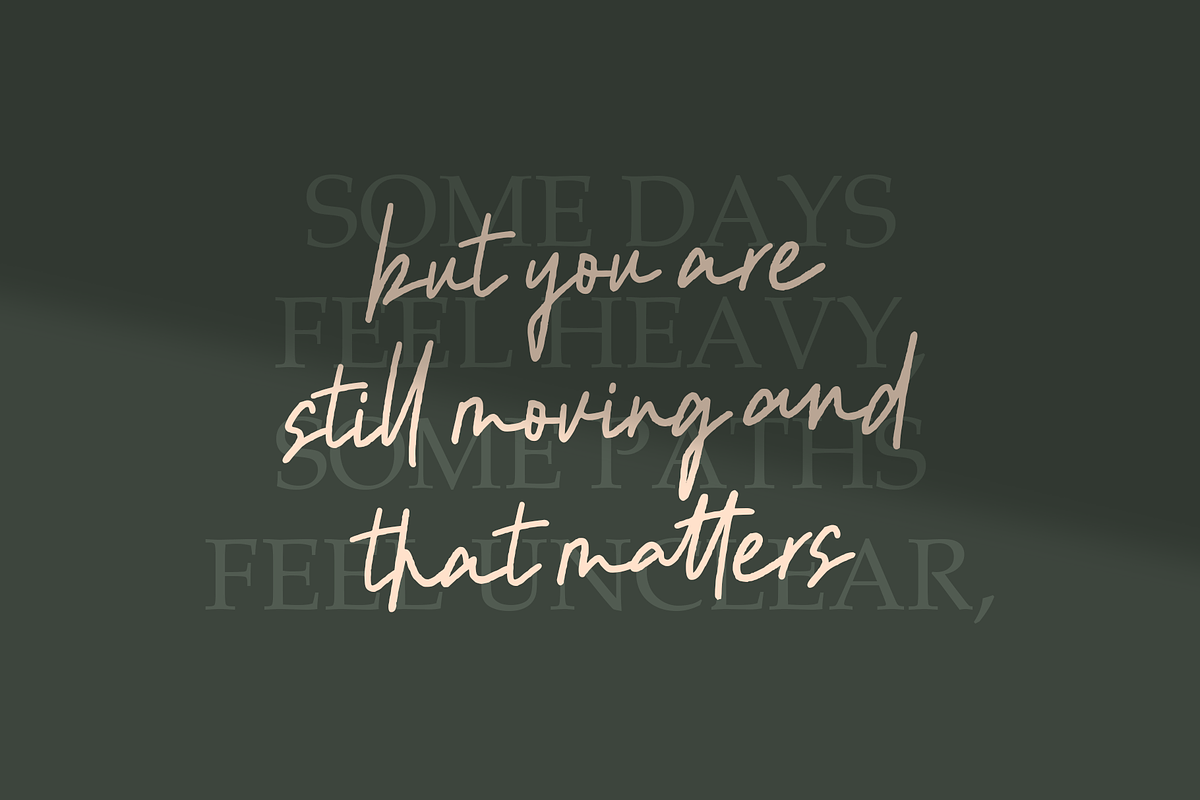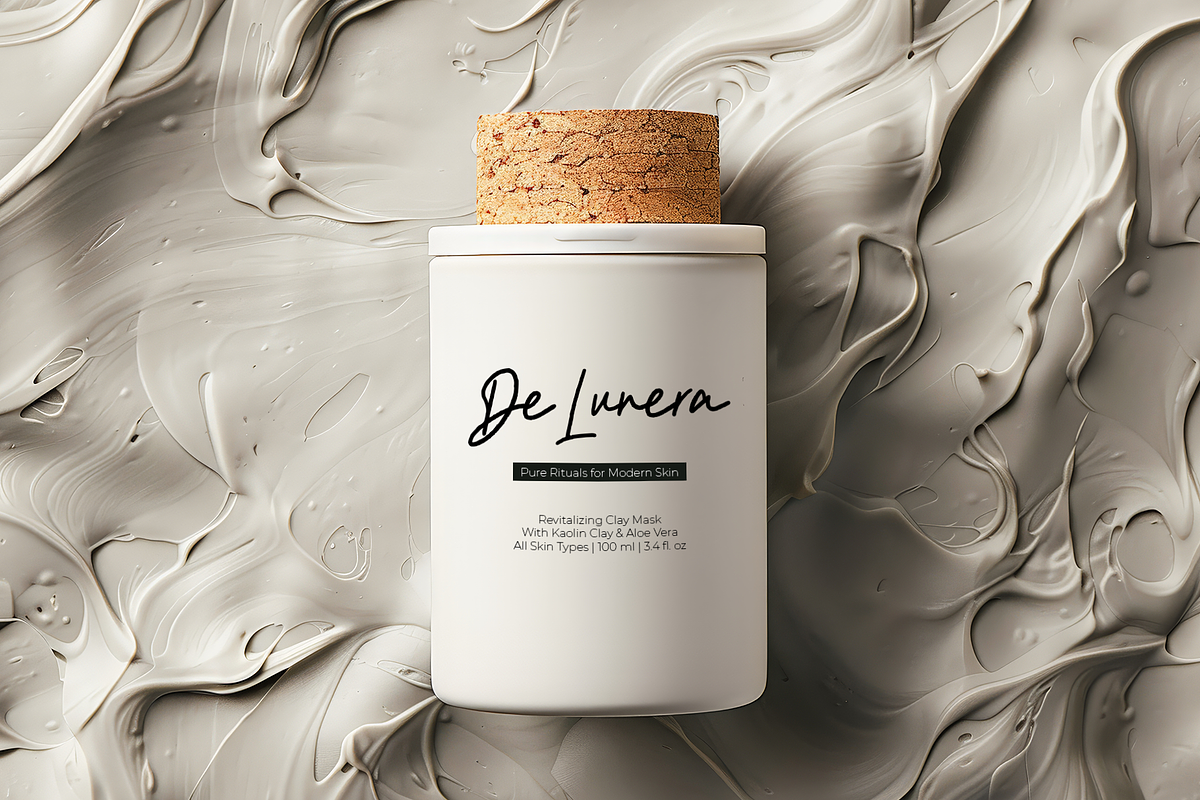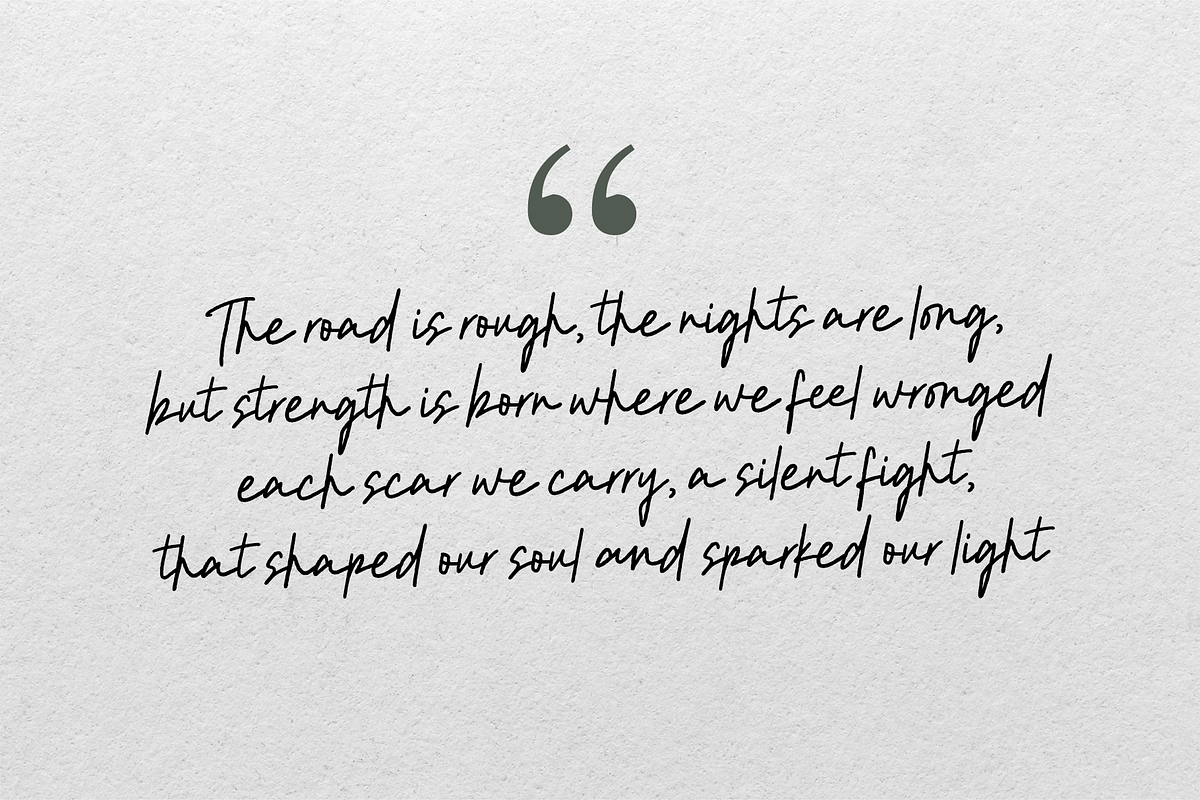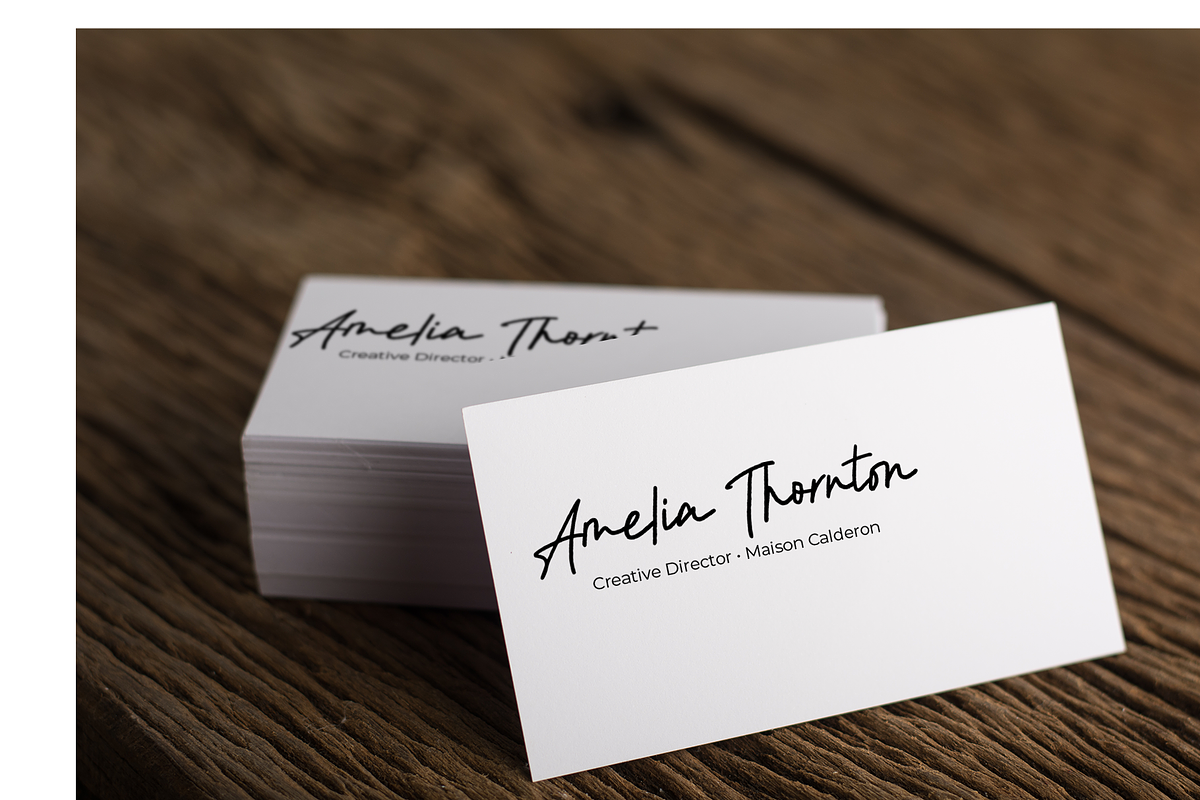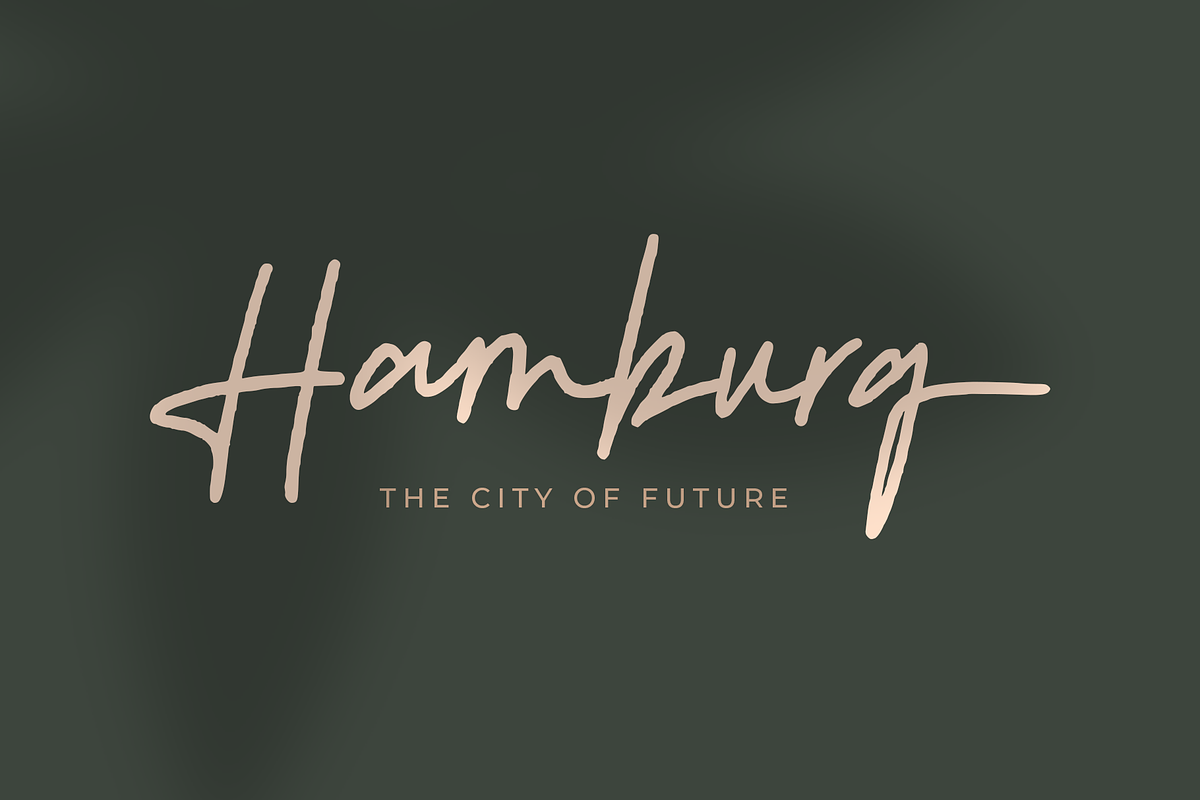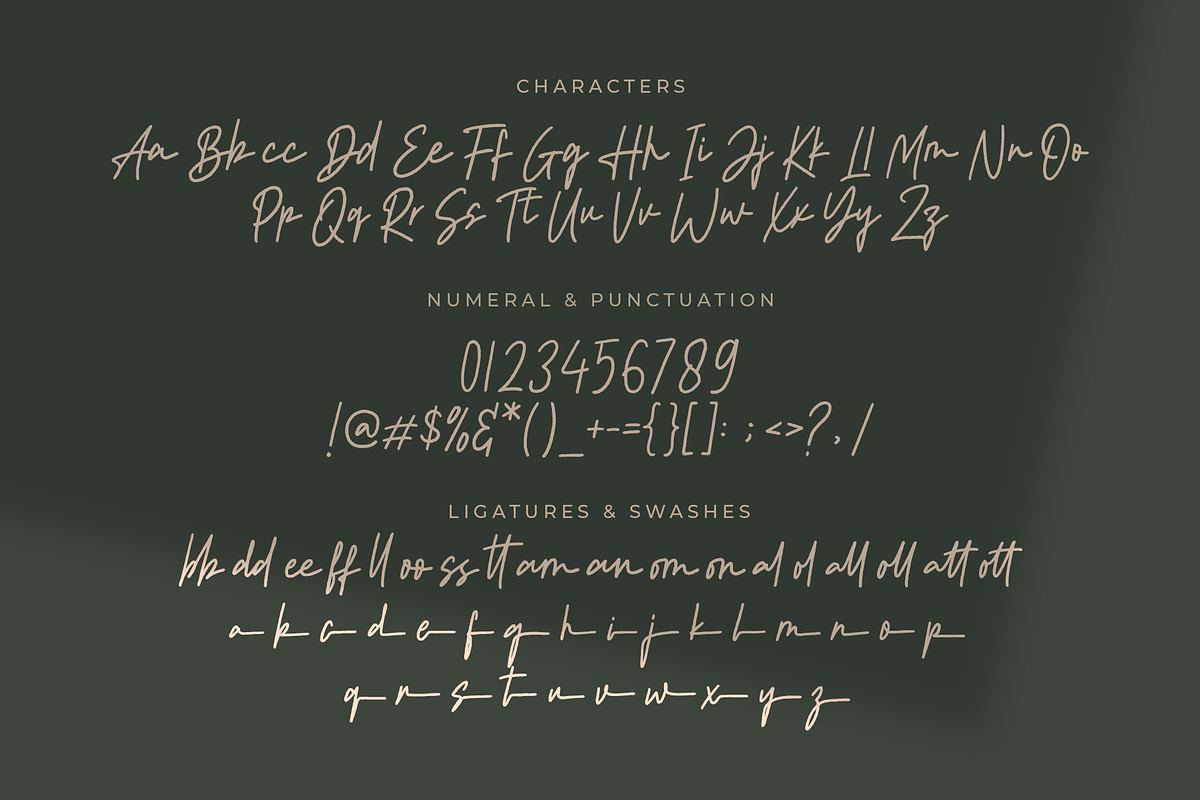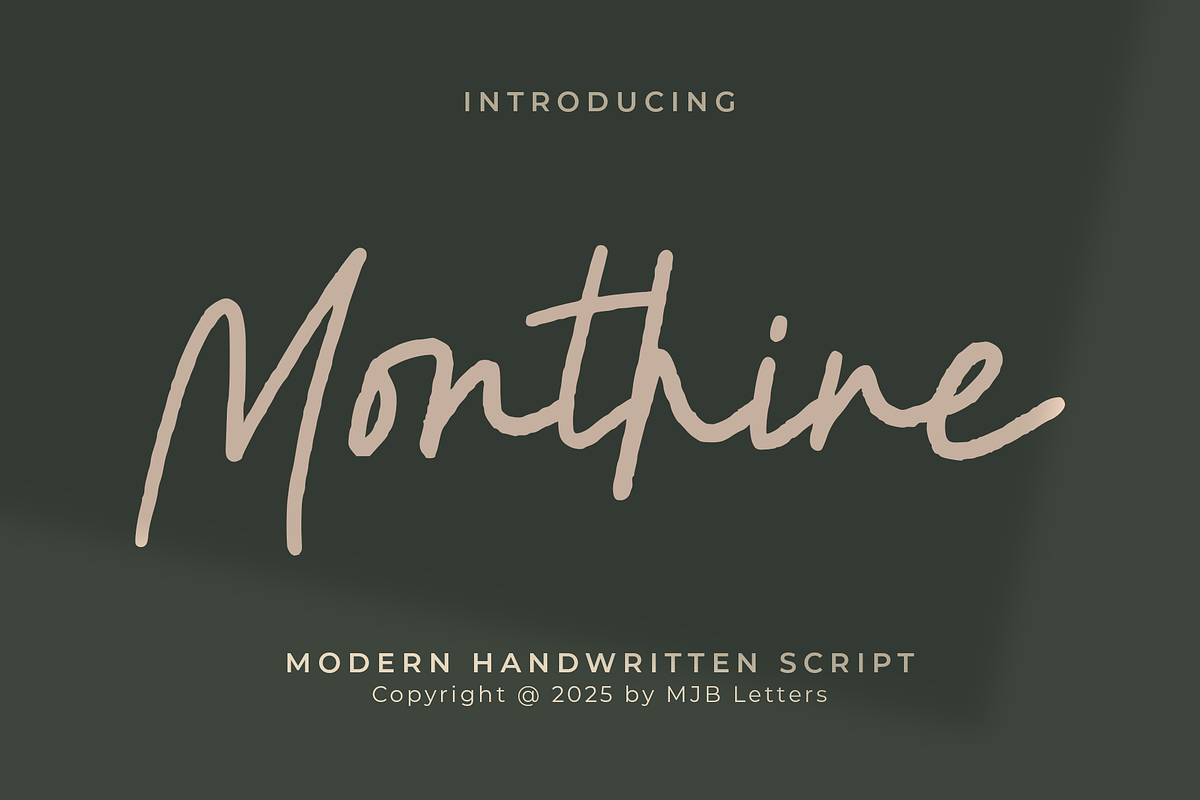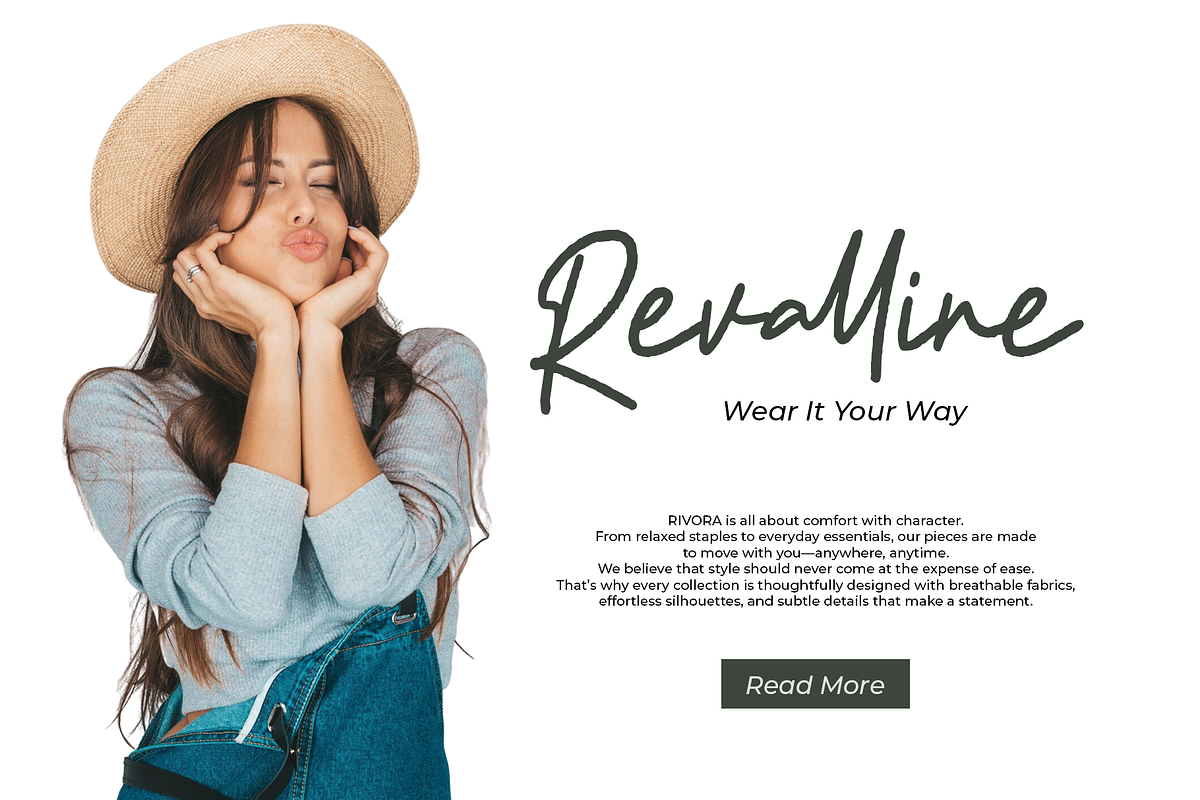
Monthine – A Modern Handwritten Scri
Monthine is a modern handwritten script font with a casual, natural flow and elegant character. Designed to feel authentic and expressive, Monthine brings a warm handwritten touch that feels both personal and professional. Its clean strokes and balanced letterforms make it easy to read while still maintaining a charming handwritten personality.
This font is perfect for a wide range of creative projects, including branding, logo design, packaging, social media content, wedding invitations, greeting cards, quotes, posters, and lifestyle designs. Monthine works beautifully for both digital and print use, helping your designs feel more human, stylish, and approachable.
With full uppercase and lowercase letters, numbers, punctuation, and smooth ligatures, Monthine allows you to create natural-looking typography with ease. Multilingual support and PUA encoding ensure flexibility and compatibility across different design applications.
Bring a fresh, handwritten charm to your creative work with Monthine.